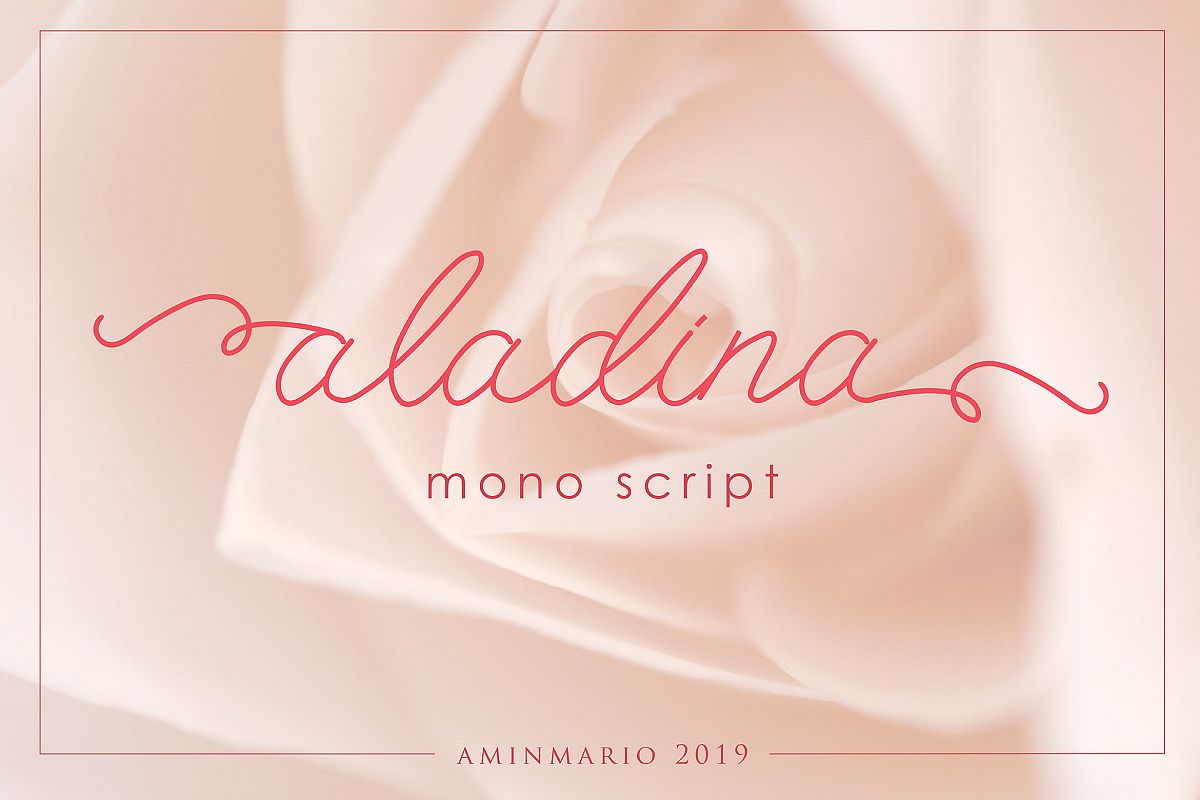
ALADINA
We introduce our new product called ALADINA.
Aladina is a new script with a monoline stylish handwritten.
Monoline script style make this font looks natural, classy and perfect for any awesome project that need hand writing taste.
This is suitable for logos, watermarks on photography, signatures, branding, advertisement, quotes, invitations, stationery, wedding design,album covers, business cards, clothing, magazines, posters, and more!
As usual ,the font comes with many opentype features such as Title and Ending Swash beautiful so that makes your design more special. , and also support multilingual.